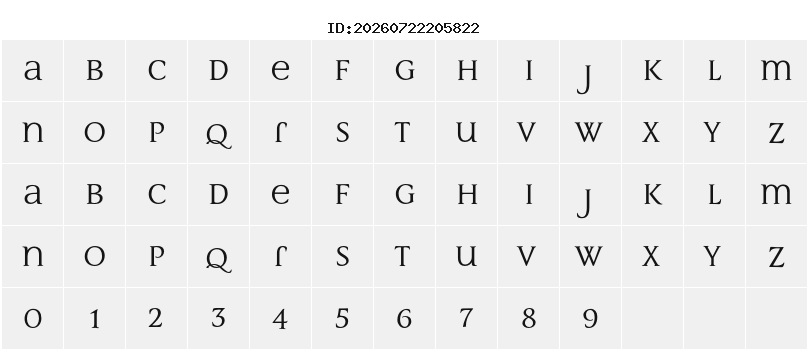
• Font Name: Multima Strong
• Designer: Kiril Zlatkov
About Multima Strong.otf
Multima Strong.otf is a modern, elegant sans-serif font designed for ultimate readability and visual harmony. Perfect for branding, headlines, web design, and print materials.